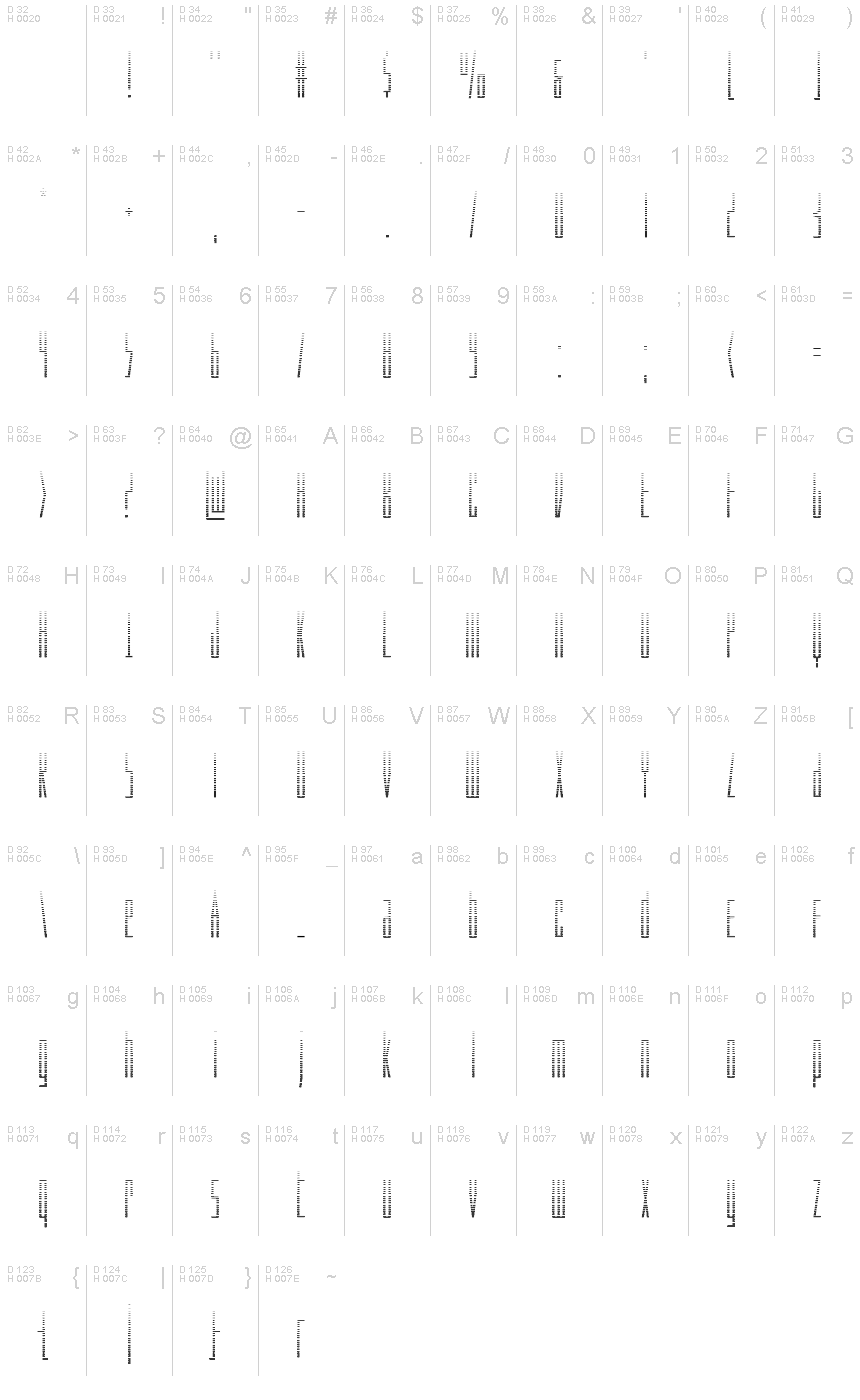
Phantacon Gradient
Phantacon Gradient is a striking display font that exudes a distinct techno flair. Designed by Daniel Zadorozny, this condensed, light-weight typeface boasts a captivating gradient effect, lending it a modern, futuristic aesthetic. The clean, geometric letterforms and the seamless blend of tones create a visually arresting impression, making Phantacon Gradient an ideal choice for headlines, logos, and various digital media applications.
Its versatile nature allows it to seamlessly integrate into a wide range of design projects, from sleek tech-inspired branding to dynamic event posters and digital interfaces.